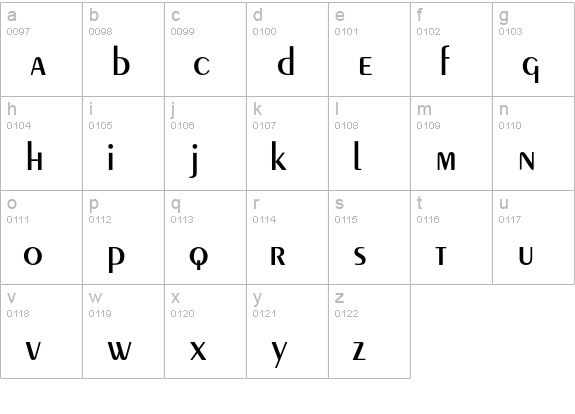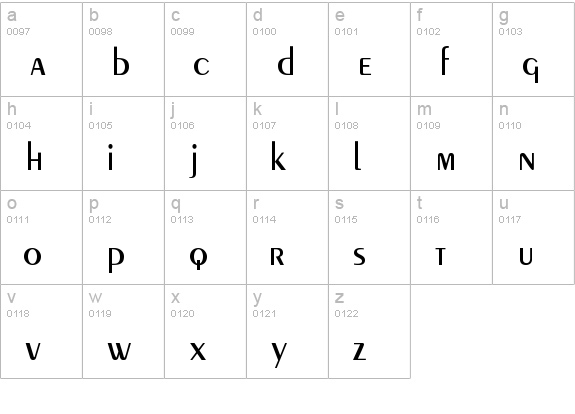
CremeSSi-SemiBold is a sub-bold, structured variant in the CremeSSi typeface family \xE2\x80\x94 well suited to sub-headlines and emphasised passages.
CremeSSi-SemiBold font is a bold and modern typeface that exudes confidence and sophistication. Its sleek design and strong presence make it the perfect choice for headlines, titles, and branding projects. The semi-bold weight strikes the ideal balance between boldness and readability, making it versatile for a variety of design applications. What sets CremeSSi-SemiBold font apart is that it is available for free download at FontsMarket.com. This means you can easily access and use this premium-quality font in your projects without any cost. Whether you're designing a poster, logo, or website, CremeSSi-SemiBold font will add a touch of elegance and professionalism to your work. Don't miss out on this fantastic opportunity to enhance your designs with this stylish and impactful typeface.